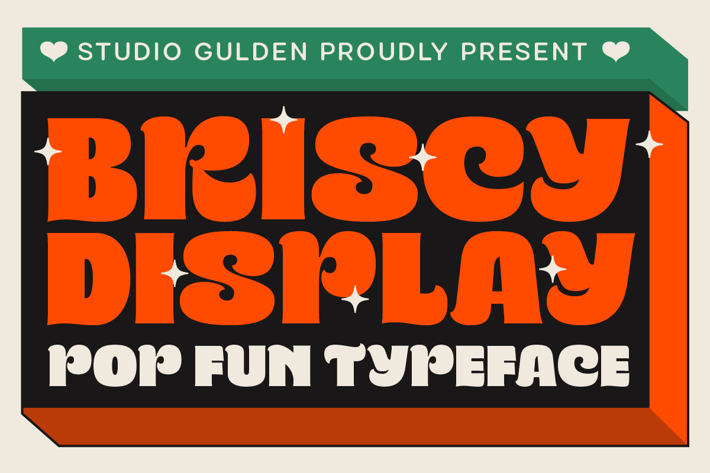
Briscy Display Font
Briscy display font is a vibrant display typeface designed to infuse your projects with a bold and playful aesthetic. Its striking and lively character makes it an ideal choice for those seeking to add a pop of style to their designs. Whether you're working on eye-catching posters, dynamic branding, or creative digital content, Briscy delivers an engaging and unforgettable visual impact. Its unique flair ensures your message stands out with confidence and creativity.